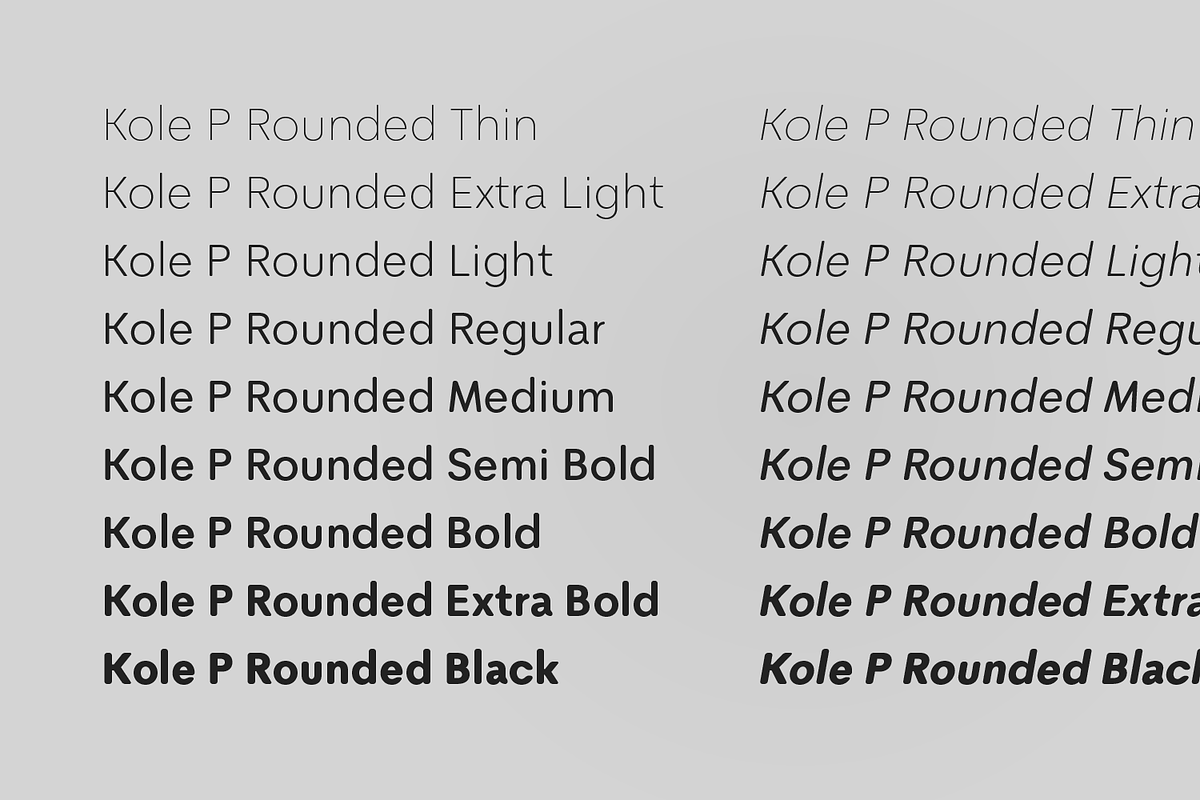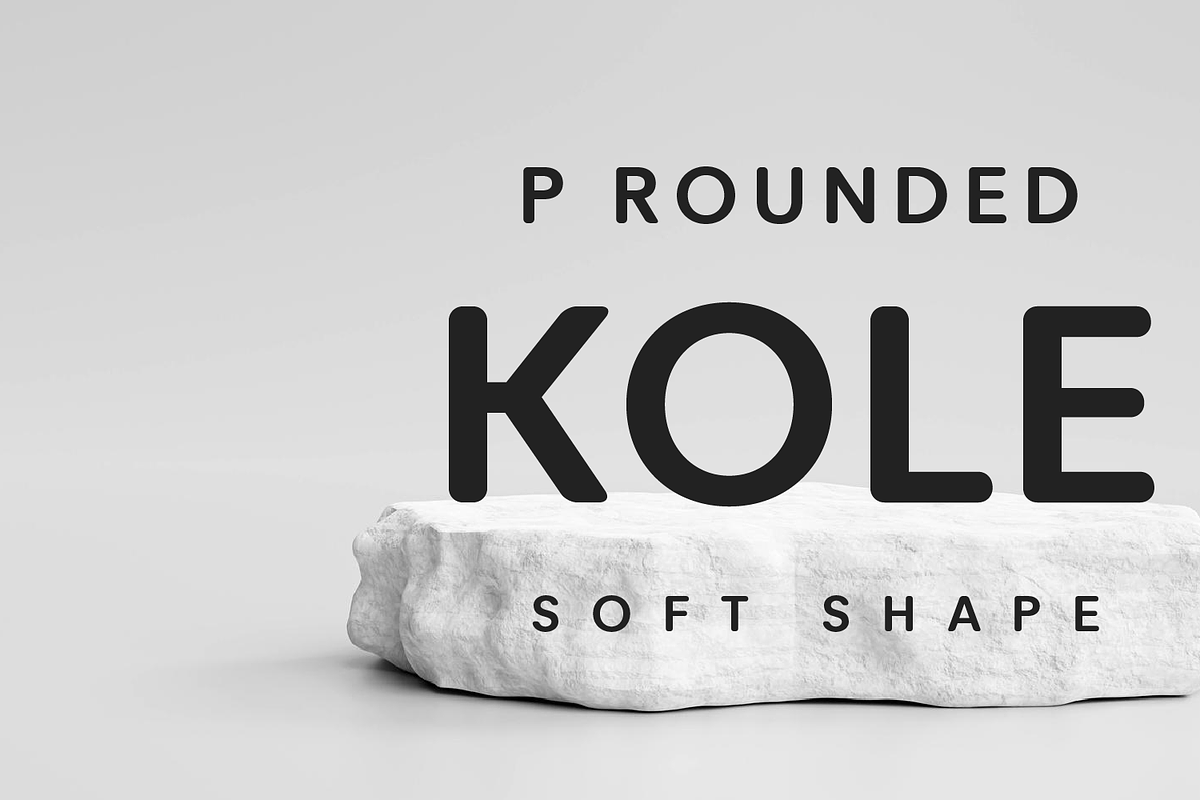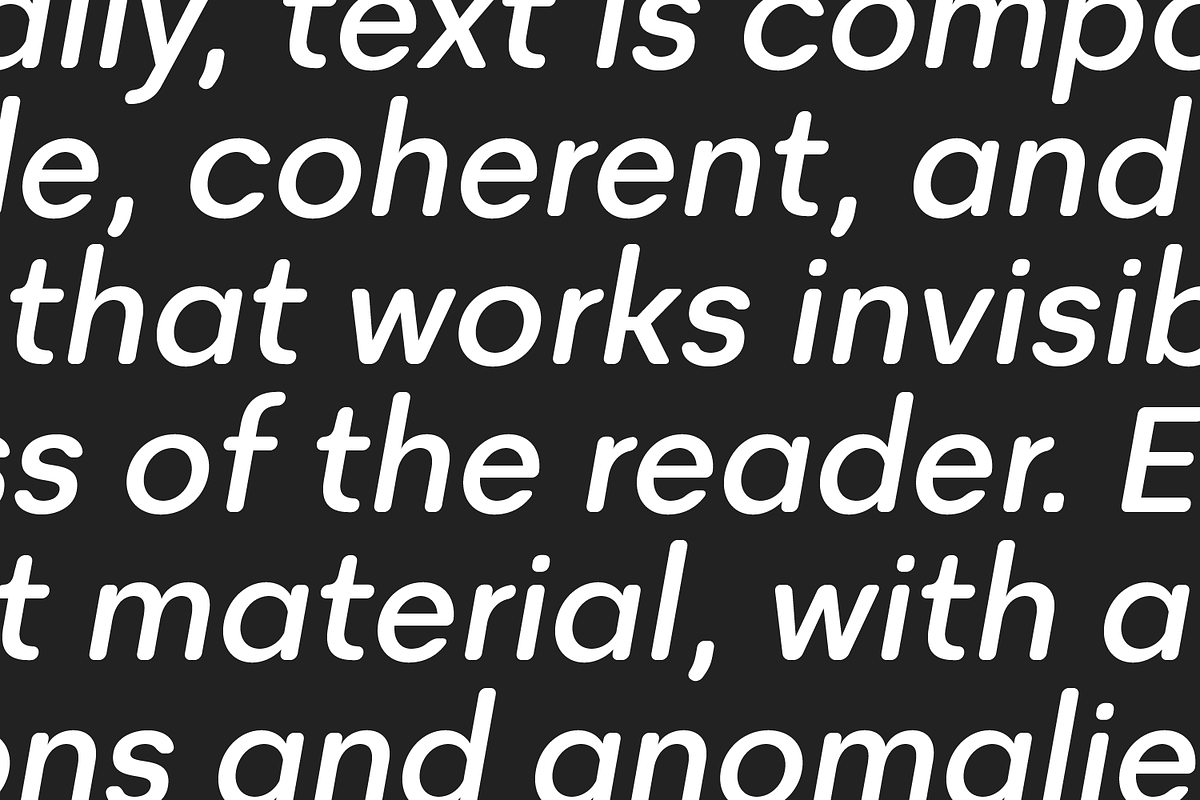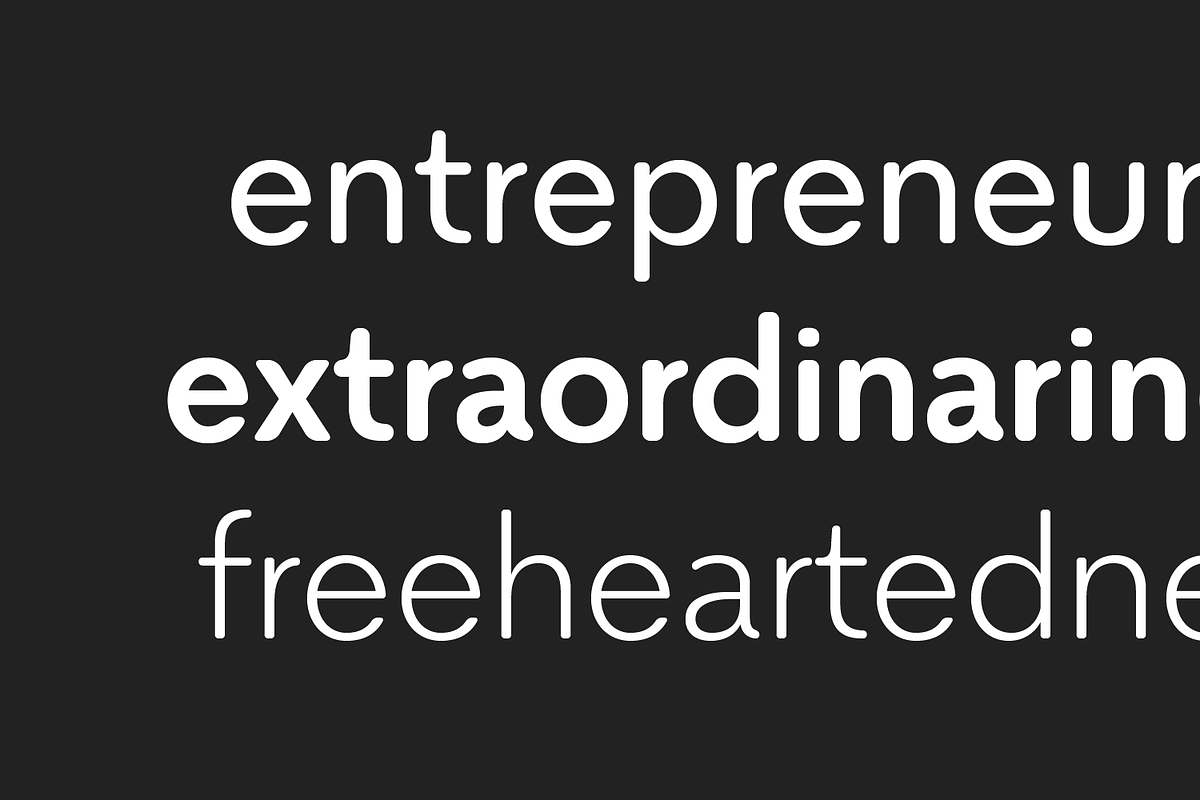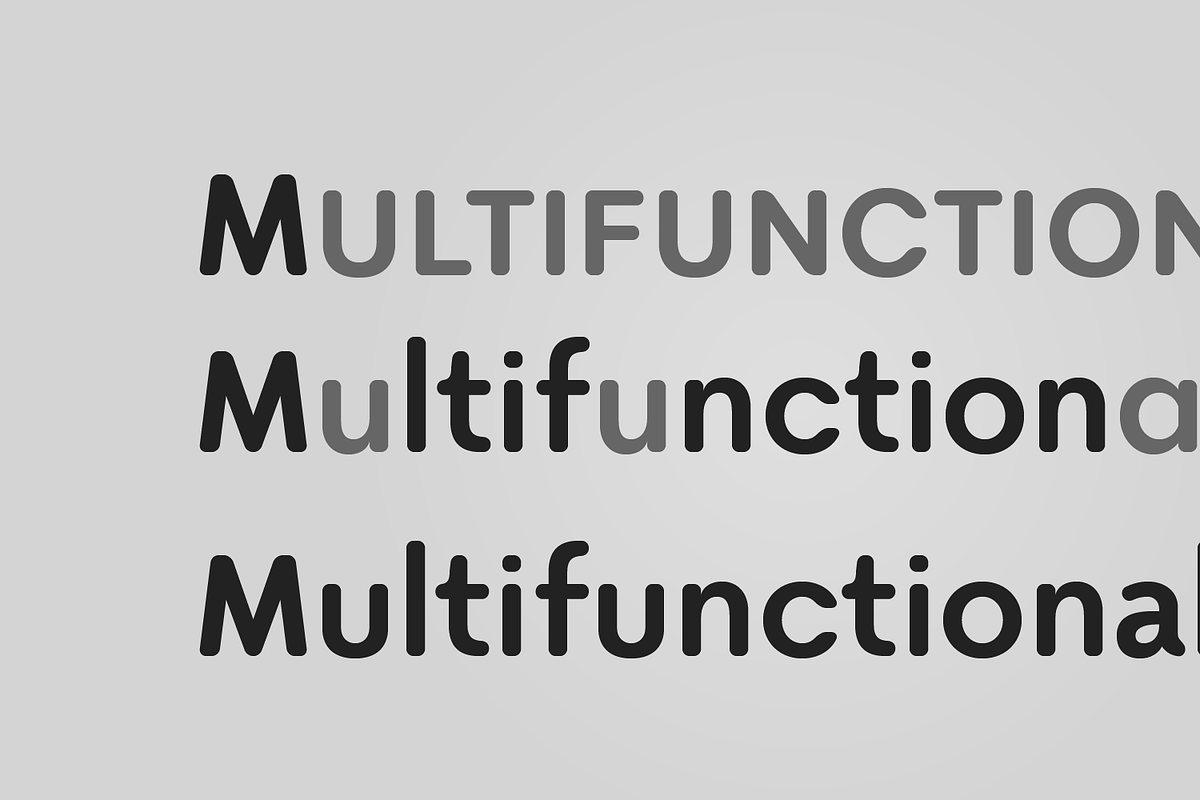
Kole P Rounded
Kole P Rounded is based on the Kole font family. The complete family contains 18 weights. This family is ideally suited for signage, packaging, brand identity, software, editorial design, as well as web and screen design. Perfectly for headlines and logotypes.